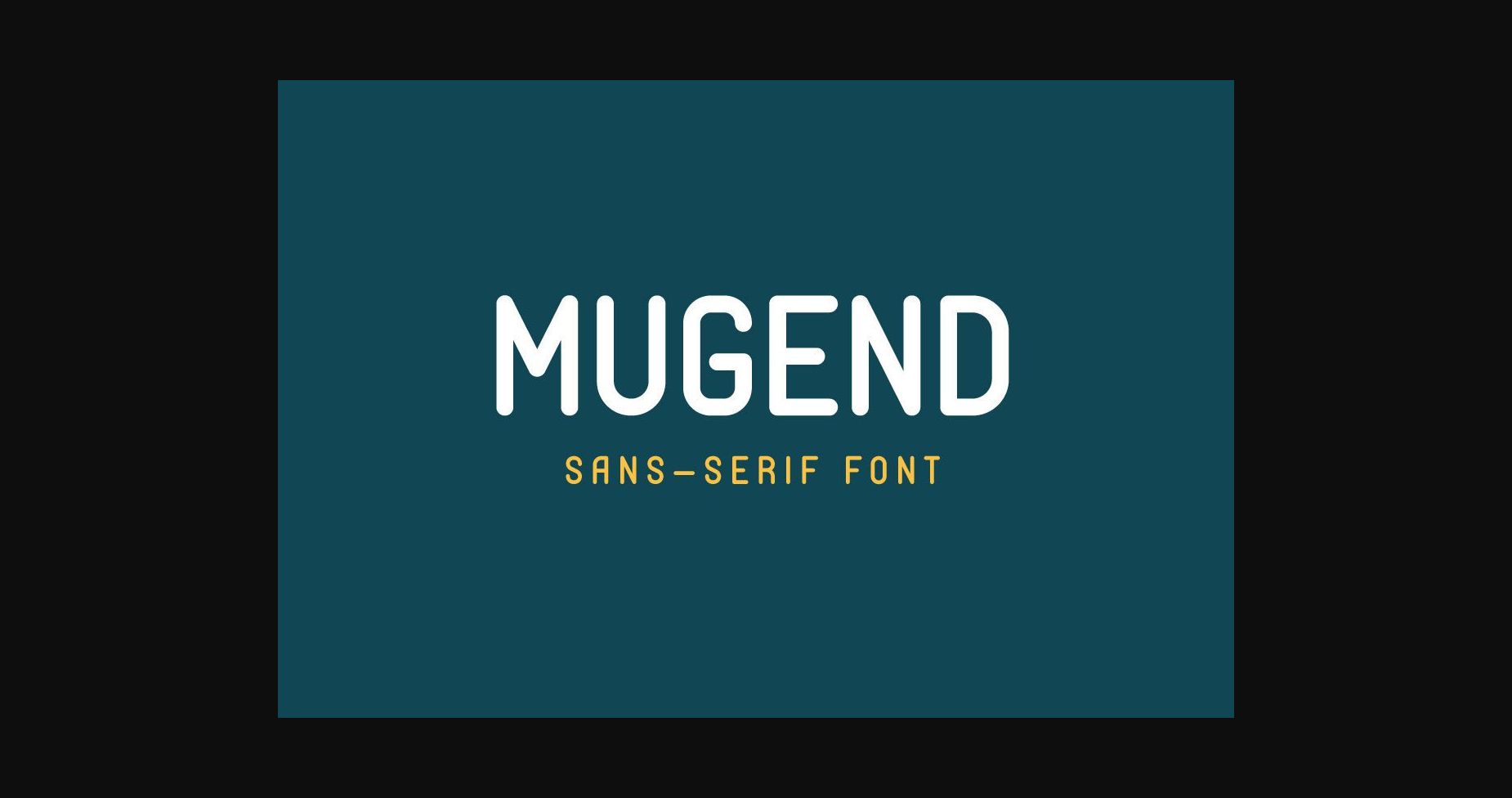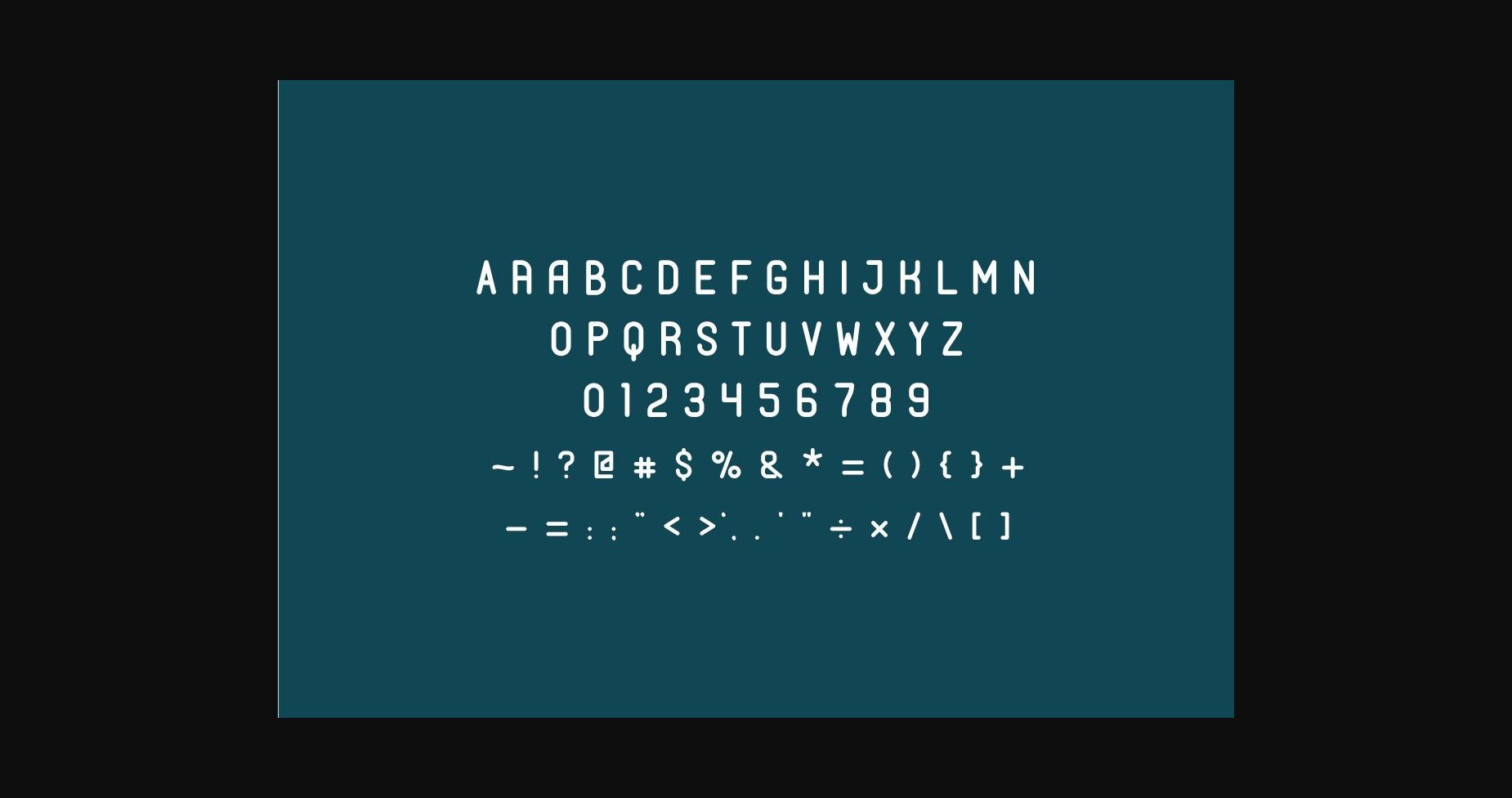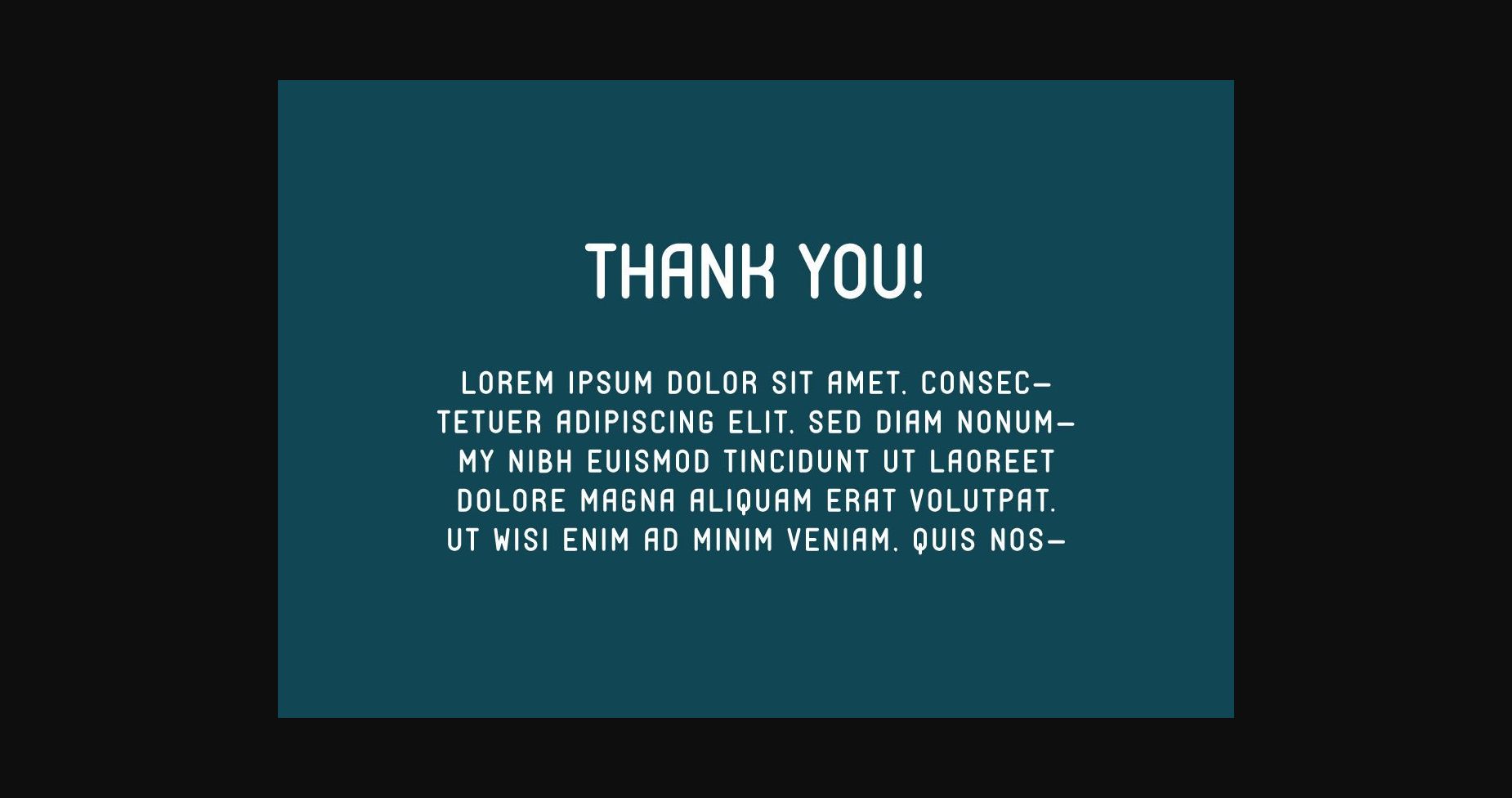
Mugend Font
About Mugend Font
Mugend is a modern, clean, and eye-catching sans serif font ideal for posters, cards, book titles, headlines, news, banners, flyers, stationery, and many more. Add it to your fonts library, and start creating awesome designs with Mugend!